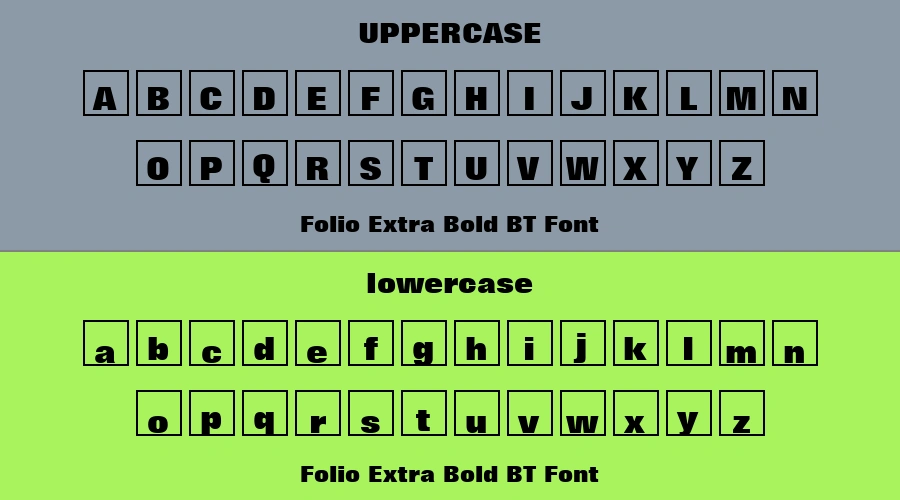
About Folio Extra Bold BT Font
Designed with precision, Folio Extra Bold BT Font merges dynamic forms with artistic impact in every character. This versatility makes it particularly effective for advertising headers, where accuracy and industrial strength directly impact communication quality. Each letterform demonstrates meticulous craftsmanship.
Technical excellence shines through elements like consistent strokes and tabular figures, enhancing typographic versatility. In white papers settings, Folio Extra Bold BT Font proves its worth through superior numerical alignment. The thoughtful execution of ascender height and design philosophy ensures professional results.